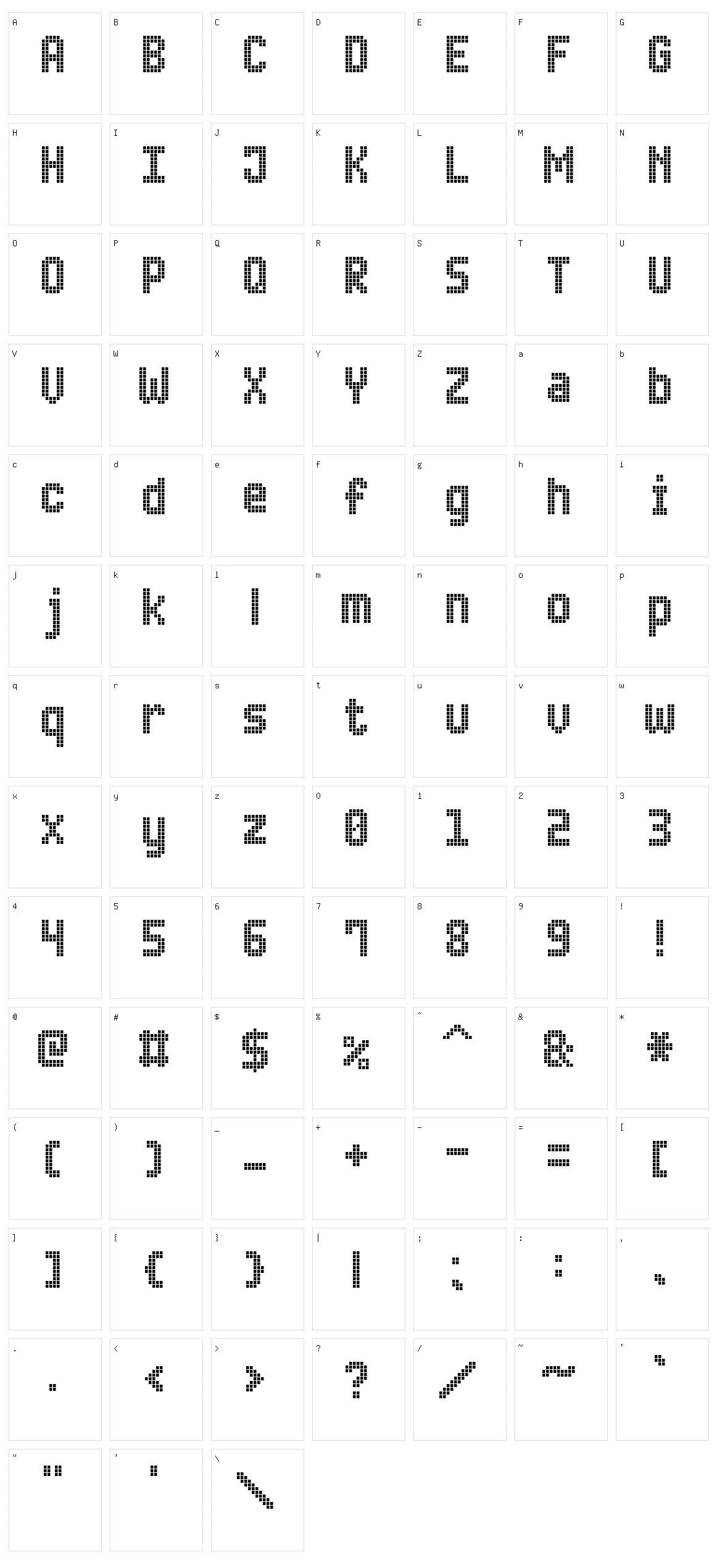
This is original font created in style a LED (Light Emitting Diode) matrix. Native size is 25 points. Latin1, Latin2 and Cyrillic code pages are supported.
* Latin 2 code page is added;
* Minor changes of glyphs.